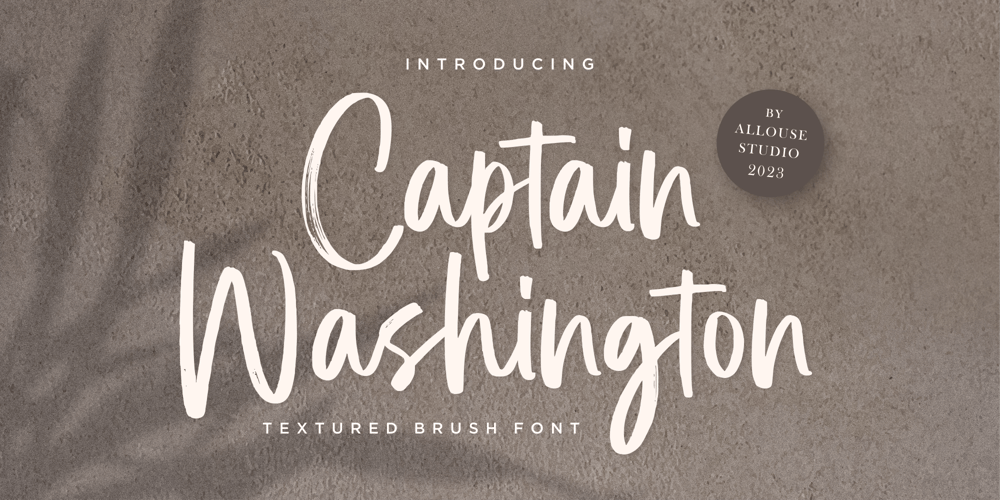
Captain Washington Font Family was designed by Fachrizal Yusuf and published by Allouse Studio. Captain Washington contains 1 styles and family package options. Proudly Presenting, Captain Washington A Textured Brush Font.Captain Washington is perfect for any titles, logo, product packaging, branding project, megazine, social media, wedding, or just used to express words above the background.Captain Washington also come with Multi-Lingual Support.Enjoy the font, feel free to comment or feedback, send me PM or email. Thank You!